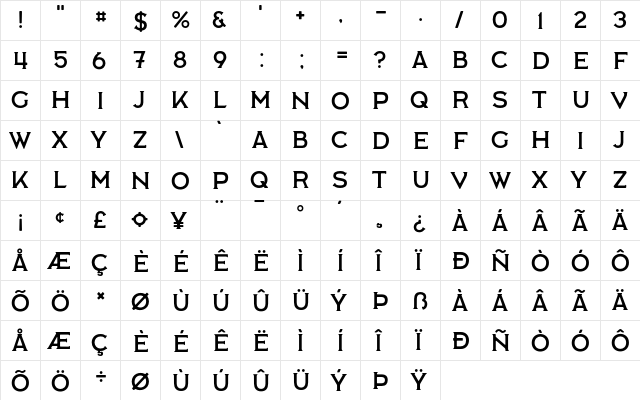
Labor Union Regular
Design Context for Labor Union Typeface
Labor Union is a composed and adaptable typeface that performs quietly and consistently across a wide range of design contexts.